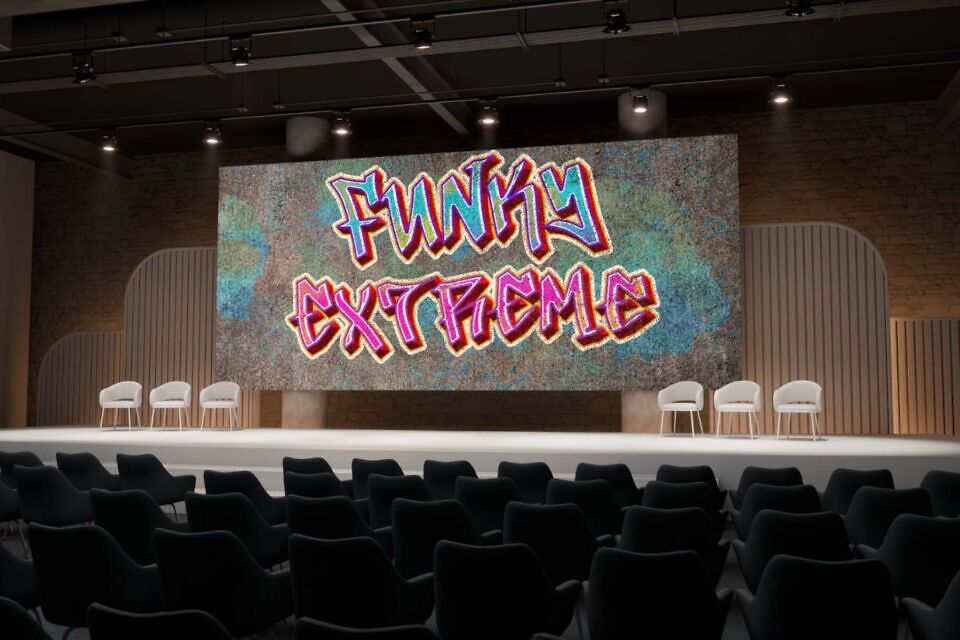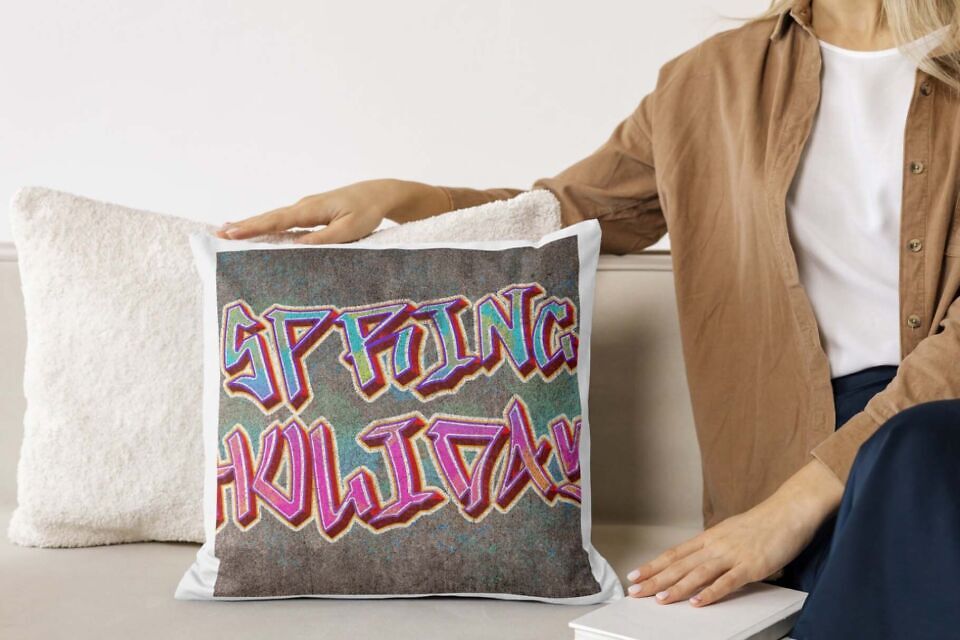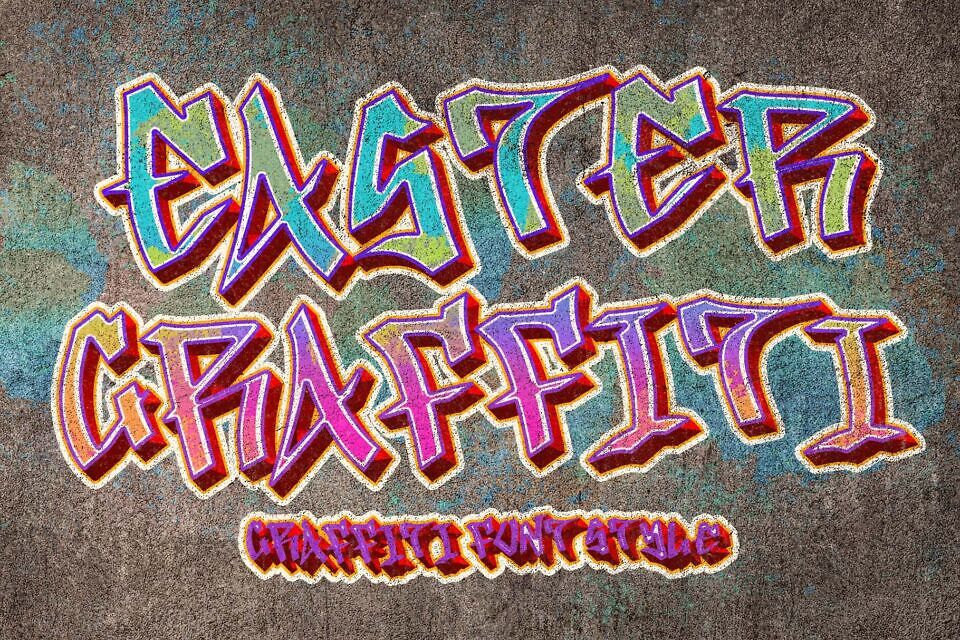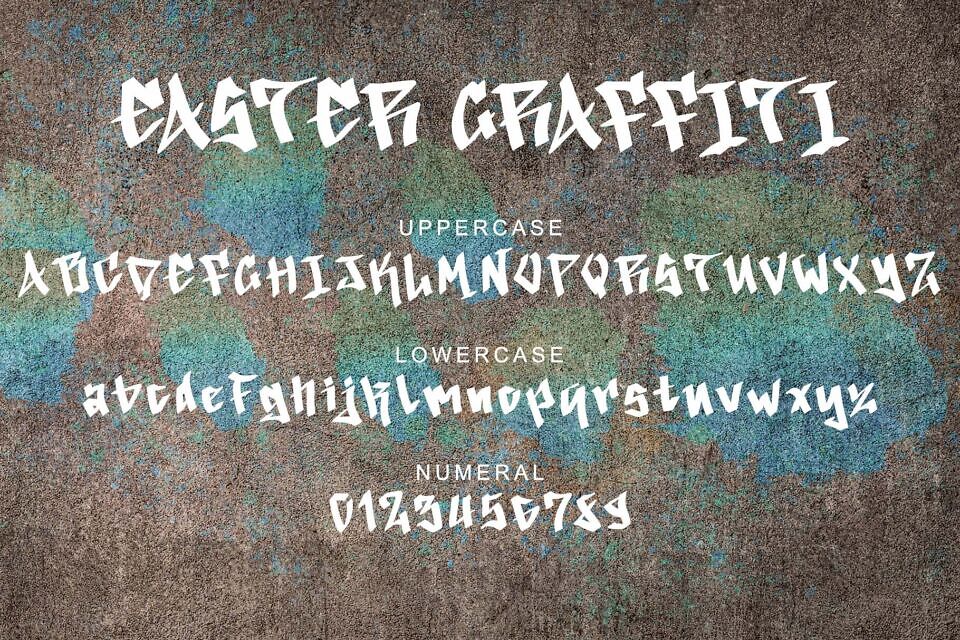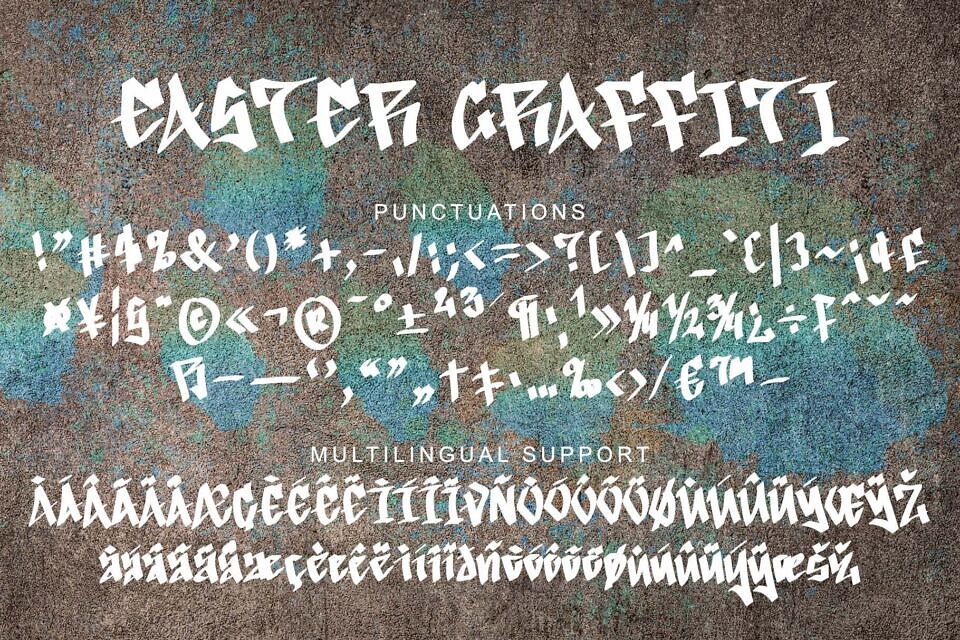
Easter Graffiti is a unique and elegant graffiti font. This font is equipped with uppercase, lowercase, numeral, punctuations and multilingual support.
Very suitable for stickers, posters, easter, print, branding, logo, spring, summer, holiday, st patrick’s day, halloween, concerts and others.